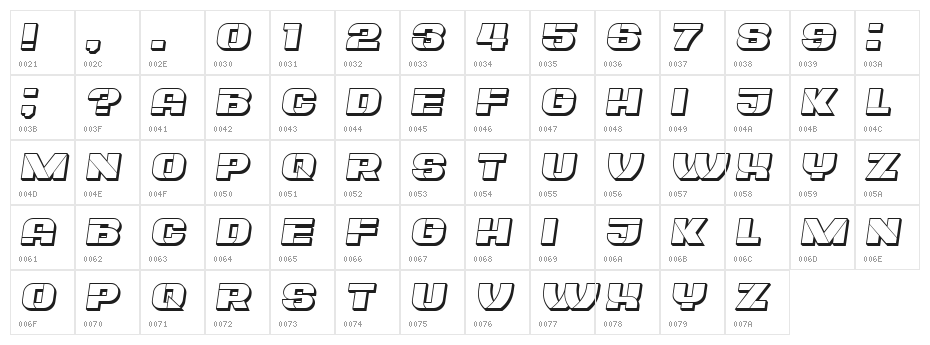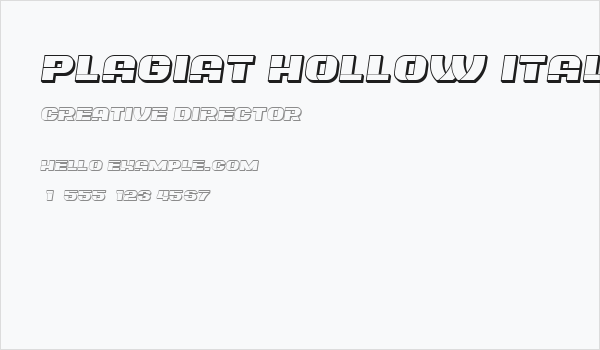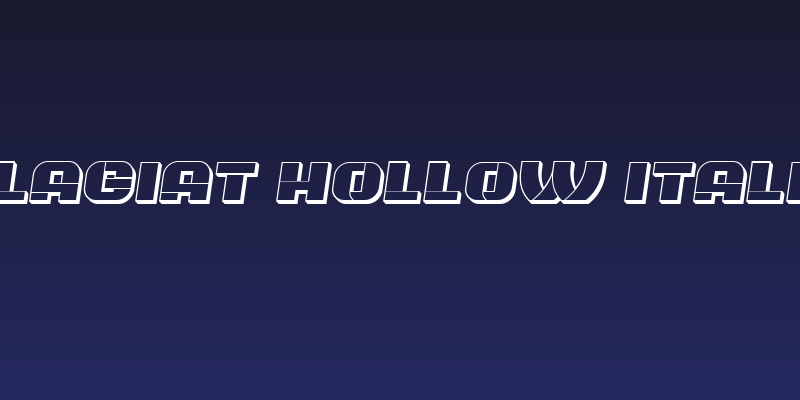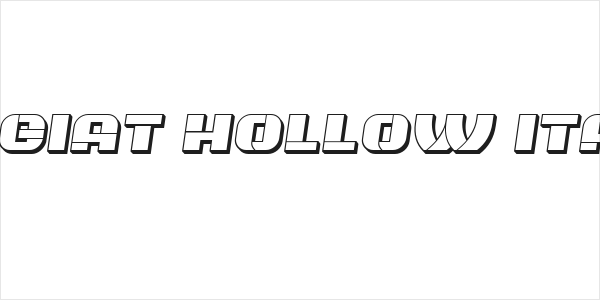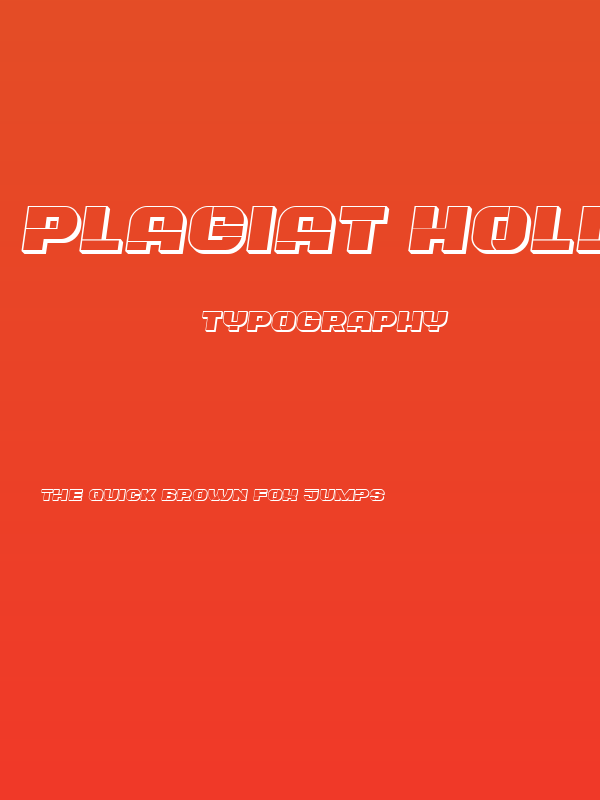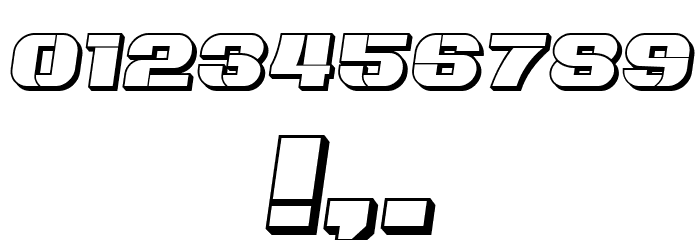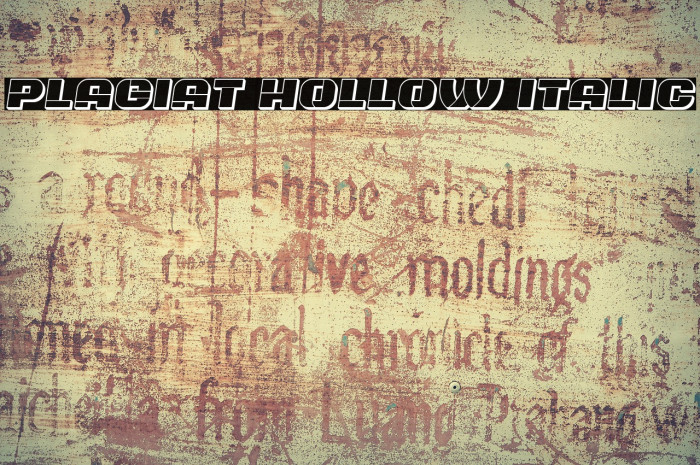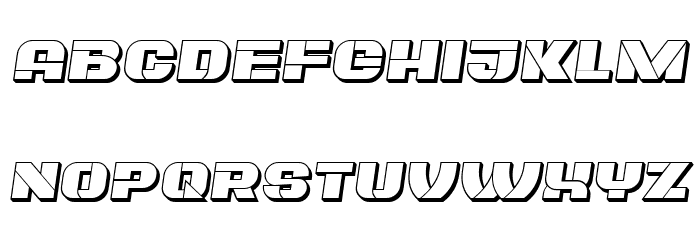
Plagiat Hollow Italic Font
Plagiat Hollow Italic Description
This font features a bold, hollow design with a distinct italic slant, creating a dynamic and eye-catching appearance. The characters are outlined with a thick, consistent stroke, giving them a three-dimensional effect. The uppercase letters are uniform in height, while the numbers and special characters maintain the same bold, hollow style. The font's geometric structure and clean lines make it suitable for modern and futuristic themes. Its unique style is perfect for projects that require a strong visual impact.